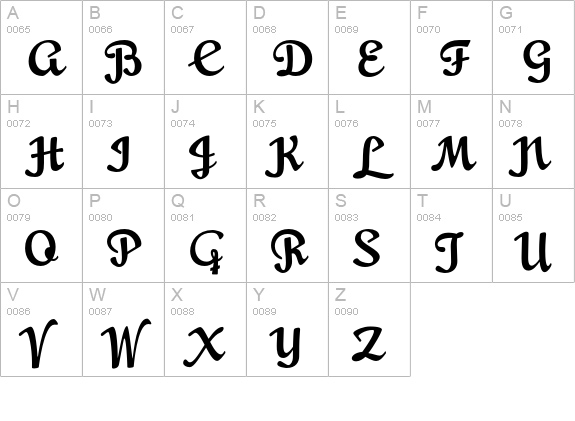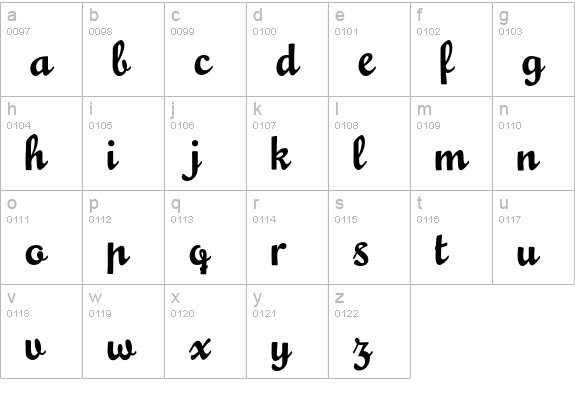
MousseScript-Alternate Font Details
MousseScript-Alternate is a beautifully crafted and elegant font that adds a touch of sophistication to any design project. With its flowing lines and intricate details, this font exudes a sense of creativity and artistry. The alternate version of MousseScript offers a unique twist to the original font, providing even more versatility and style options for your creations. What's even better is that MousseScript-Alternate is completely free to download at FontsMarket.com. This means that you can enhance your projects with this stunning font without any cost involved. Whether you're working on a branding project, creating invitations, or designing a website, MousseScript-Alternate is sure to elevate your work to the next level. Don't miss out on this fantastic opportunity to enhance your design toolkit with MousseScript-Alternate. Download it today and let your creativity soar!